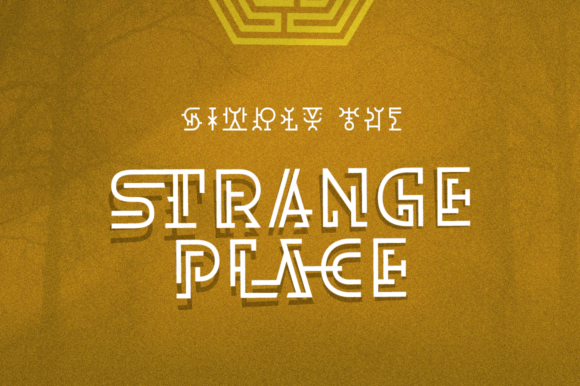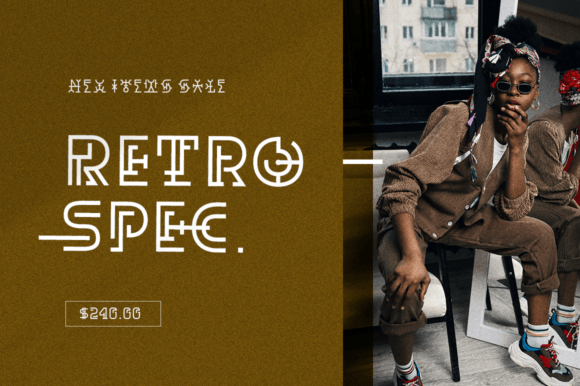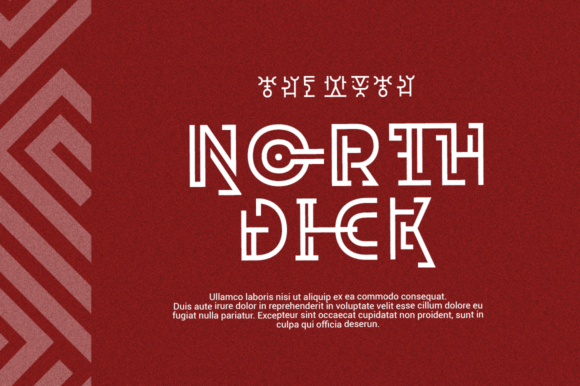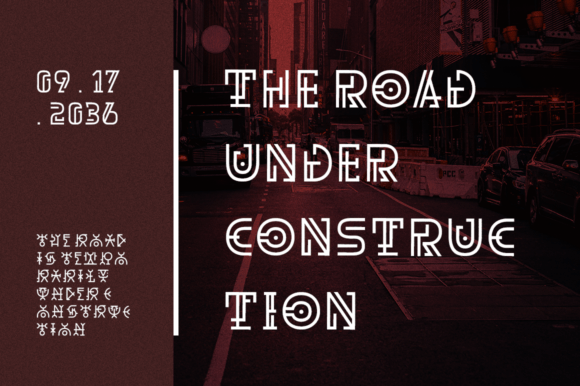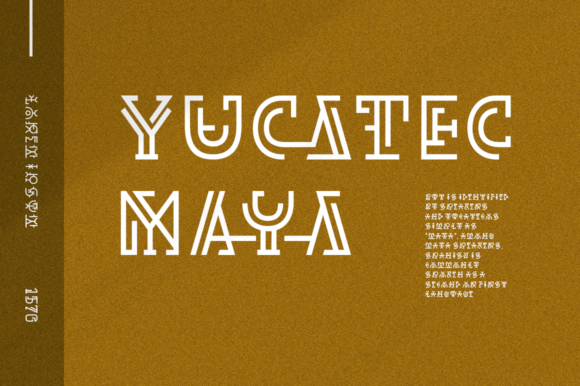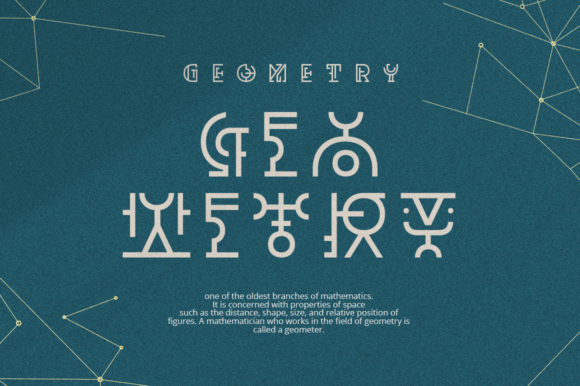
Discover the Enchanting World of Dritch Font: A Modern Geometric Marvel
In the realm of typography, few fonts have managed to capture the essence of mysticism and modernity as effectively as the Dritch Font. This unique and captivating font has been making waves in the design community, and for good reason. With its geometric, sans-serif style, Dritch is an incredibly versatile font that can elevate a wide range of projects, from logos and quotes to social media posts, film titles, and stationery.
The Mystique of Dritch Font
At its core, Dritch Font embodies a mystical aura, perfect for designs that require a touch of magic and wonder. Its geometric construction, characterized by near-monoline strokes, lends a sense of classic durability to any project. However, what truly sets Dritch apart is its masterful blend of hard lines, sharp corners, and softened edges. This harmonious fusion creates a font that is not only visually striking but also approachable and friendly.
Versatility Across Themes
One of the standout features of Dritch Font is its incredible versatility. It seamlessly adapts to a variety of themes, including mystical, tribal, ethnic, magical, and fantasy. Whether you’re working on a project that requires a touch of ancient mysticism or a modern, edgy vibe, Dritch Font proves to be an excellent choice. Its adaptability makes it a valuable asset for designers who work on a wide range of projects and need a font that can keep up.
Geometric Elegance Meets Humanist Warmth
Dritch Font strikes a perfect balance between geometric precision and humanist warmth. The font’s lowercase letters exude a friendly and charismatic vibe, making them ideal for body text, social media posts, and other applications where approachability is key. On the other hand, the uppercase letters convey a sense of sophistication and authority, perfect for headings, titles, and logos that require a bit more gravitas.
Design and Craft Applications
For designers and crafters, Dritch Font opens up a world of creative possibilities. Here are a few ways you can leverage this incredible font:
• Logos and Branding: The unique blend of modern geometry and mystical charm makes Dritch an excellent choice for logos, especially for brands that operate in the mystical, magical, or fantasy sectors.
• Quotes and Typography: Add a touch of elegance and mystique to your quotes and typographic artworks with Dritch. Its geometric style ensures that your text stands out while still being highly legible.
• Social Media Posts: Elevate your social media presence with eye-catching posts that utilize Dritch Font. Its friendly lowercase letters and sophisticated uppercase make it perfect for a variety of content types.
• Film Titles and Credits: For filmmakers and video producers, Dritch Font can add a cinematic quality to your titles and credits. Its ability to convey drama and mysticism can significantly enhance the viewing experience.
• Stationery and Invitations: Whether you’re designing custom stationery, invitations, or greeting cards, Dritch can add a touch of modern elegance and mystique.
Dritch Font is more than just a typeface; it’s a design tool that can transform your projects with its unique blend of geometric modernity and mystical charm. Its versatility, combined with its friendly and sophisticated character, makes it an invaluable asset for designers and crafters looking to make a statement. Whether you’re working on a logo, social media content, or a film title, Dritch Font is sure to bring a touch of magic to your creations.